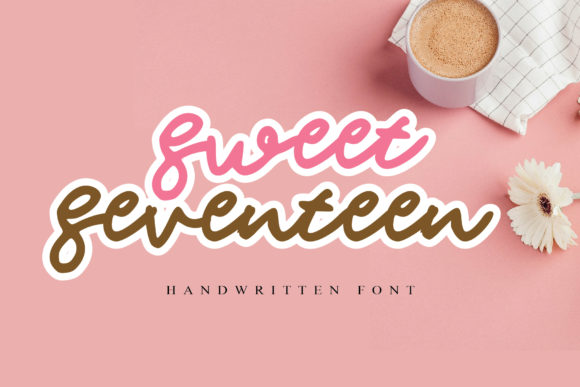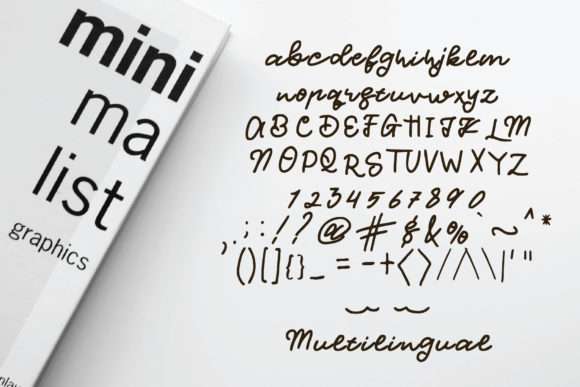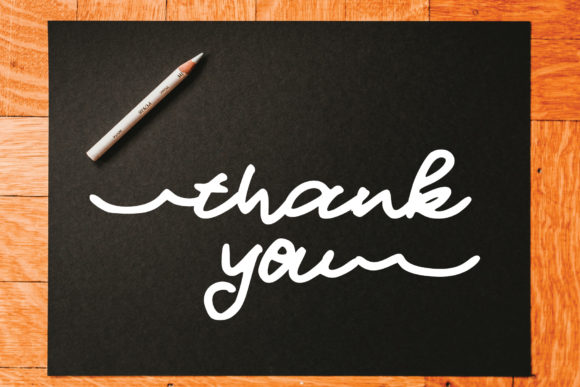
About Sweet Seventeen Font
Sweet Seventeen is a sweet and friendly handwritten font. Whether you’re looking for fonts for Instagram or calligraphy scripts for DIY projects, this font will turn any creative idea into a true piece of art!